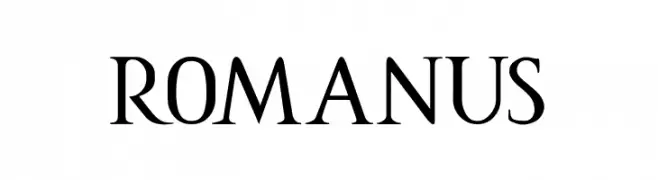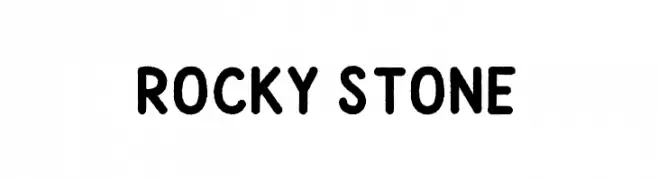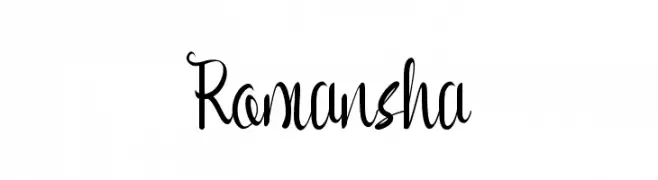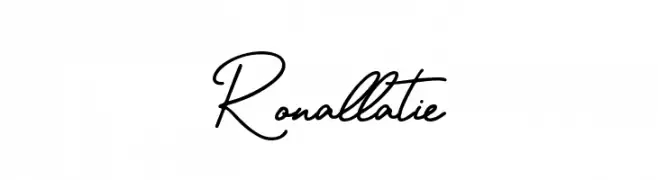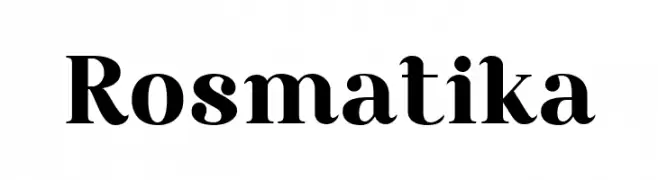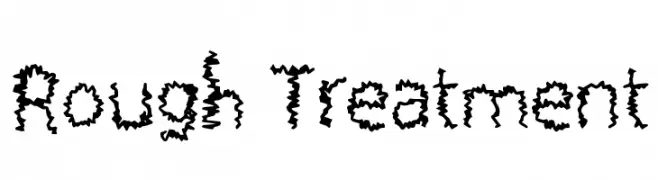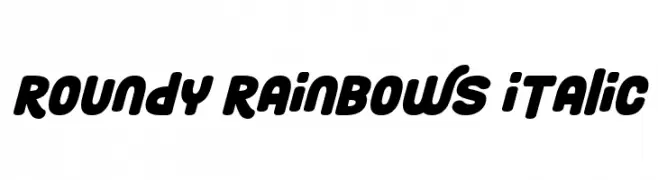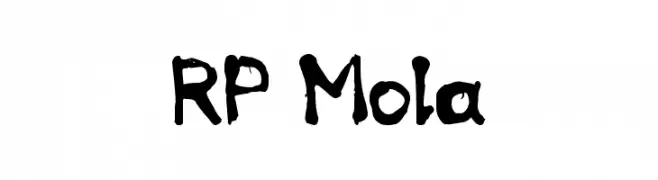
Handwritten cursive script font.
A bold, playful font with a bubbly, cartoon-like appearance.
A bold, rugged font with a hand-carved, stone-like appearance.
A classic serif font with sharp serifs and balanced proportions.
A cursive script font with a casual yet elegant style.
A bold and elegant serif font with high contrast and classic styling.
A jagged, energetic font with irregular, zigzag outlines.
A bold, rounded, and italic font with a playful and dynamic style.